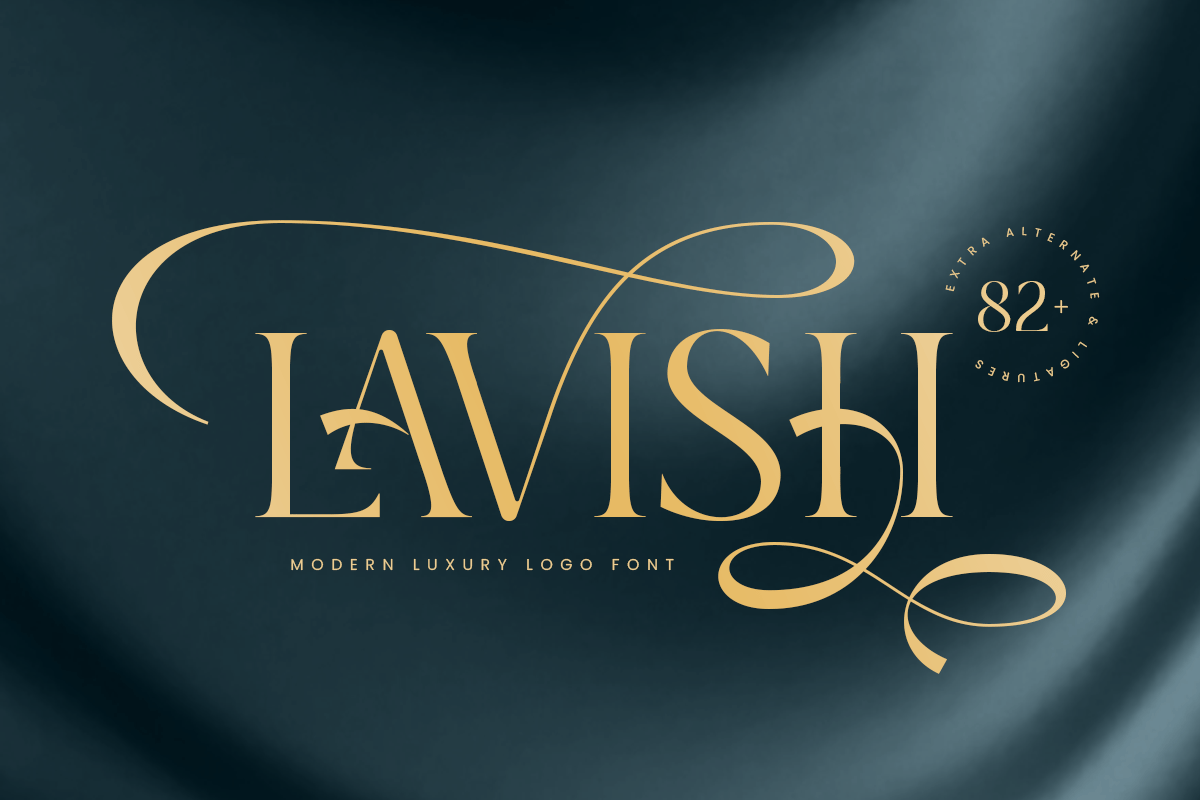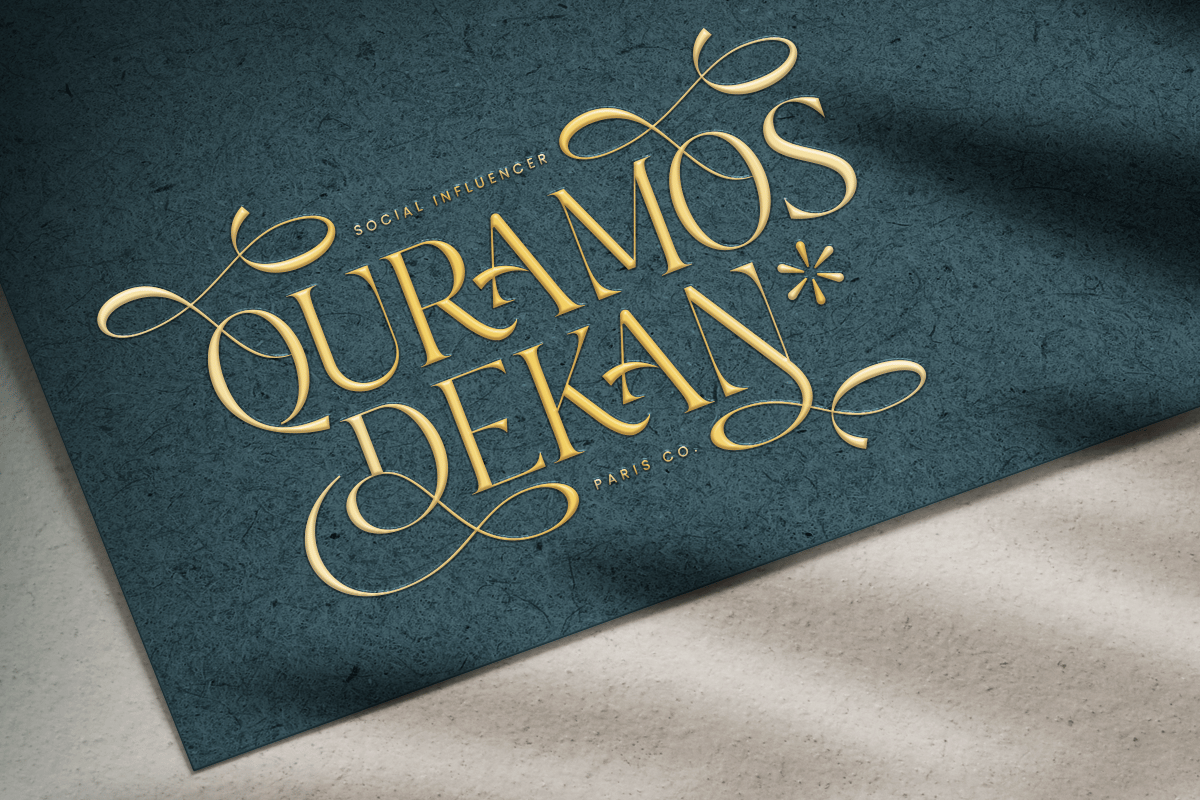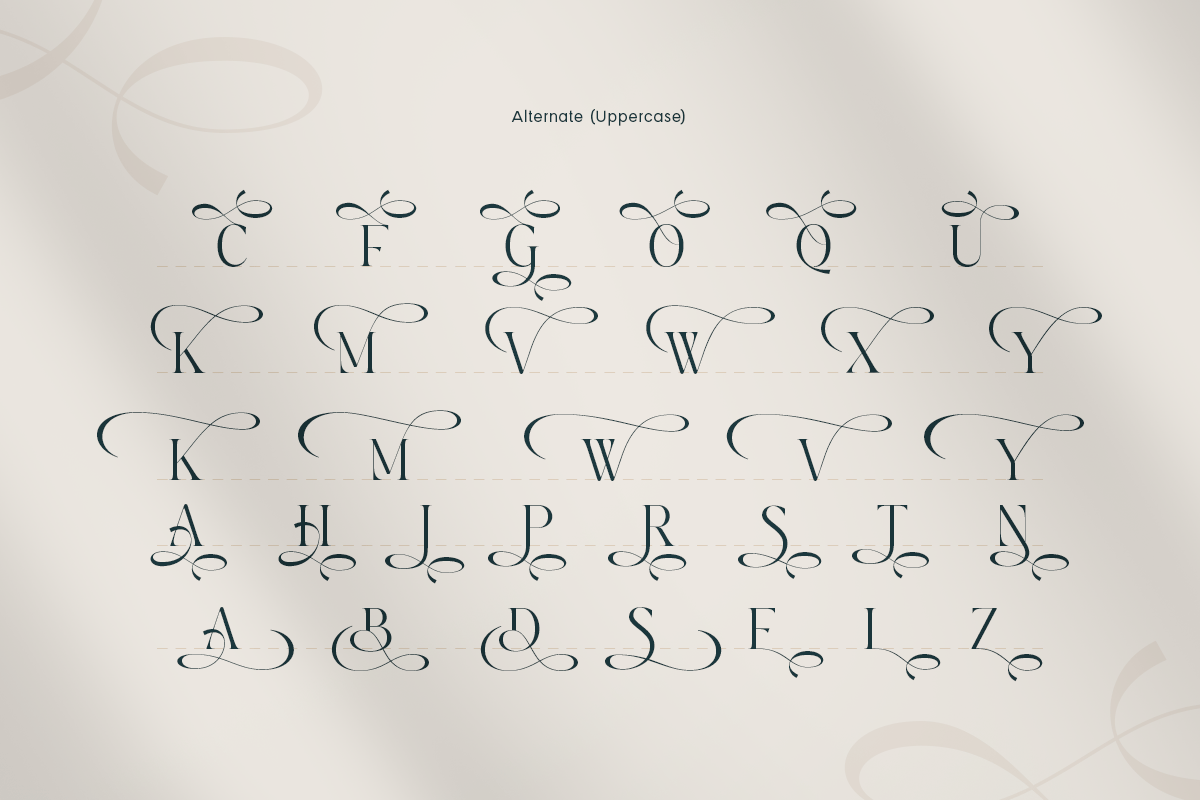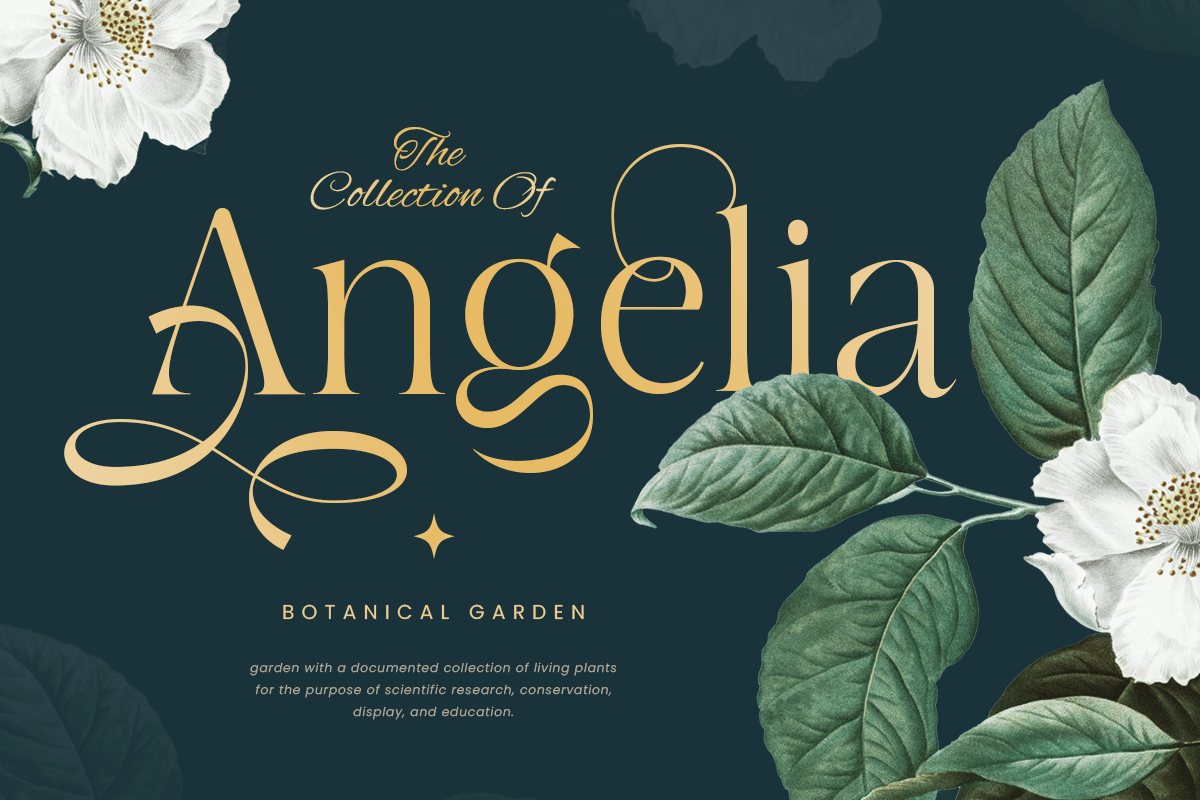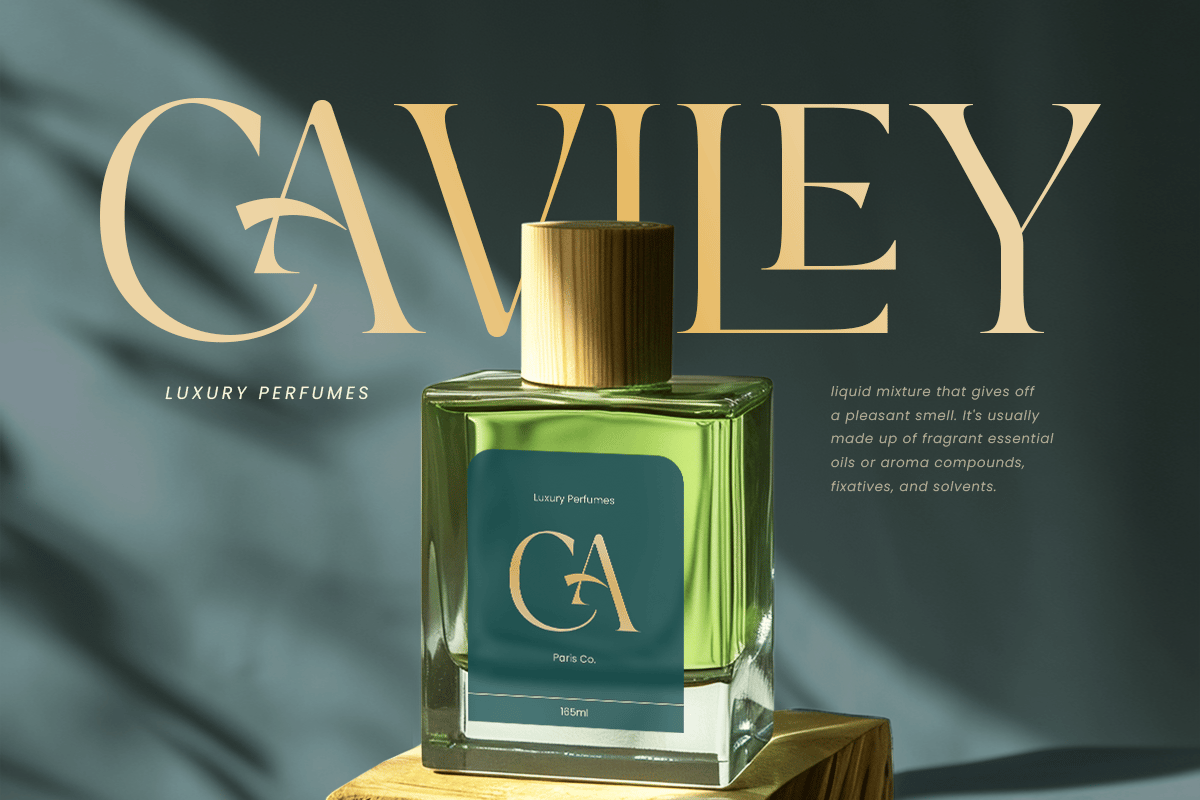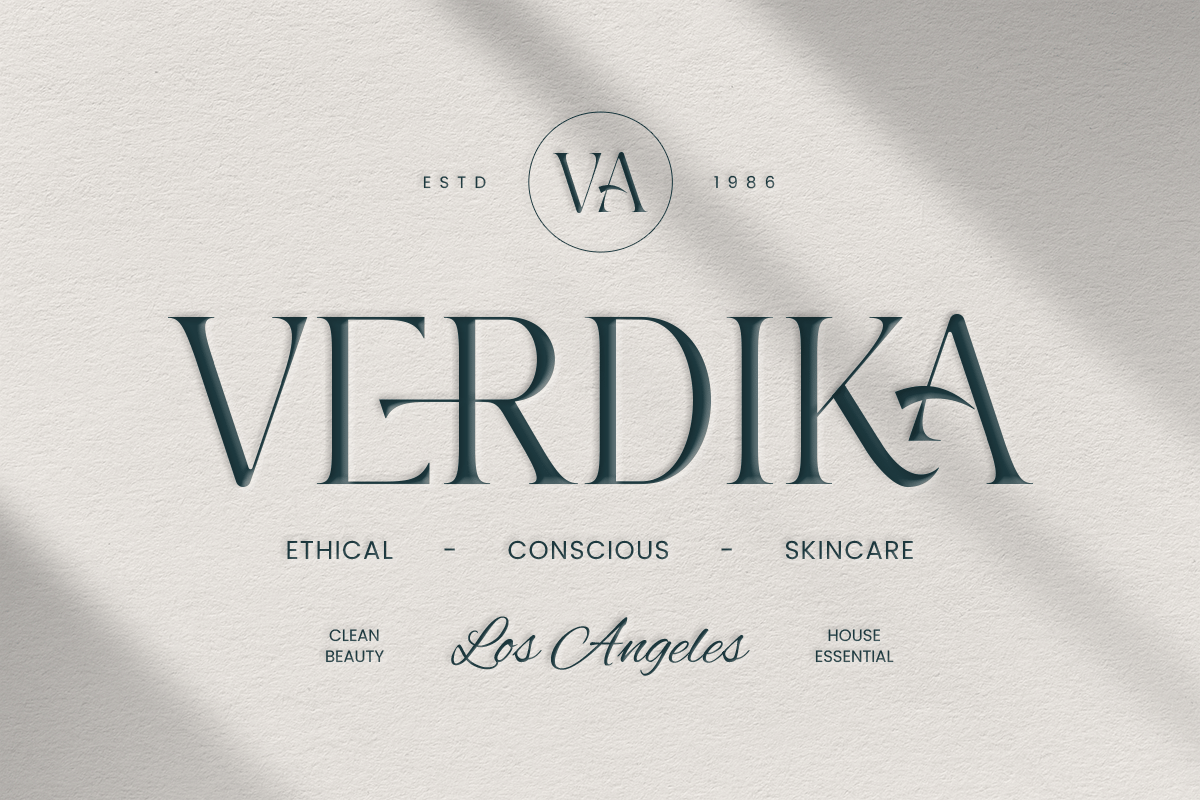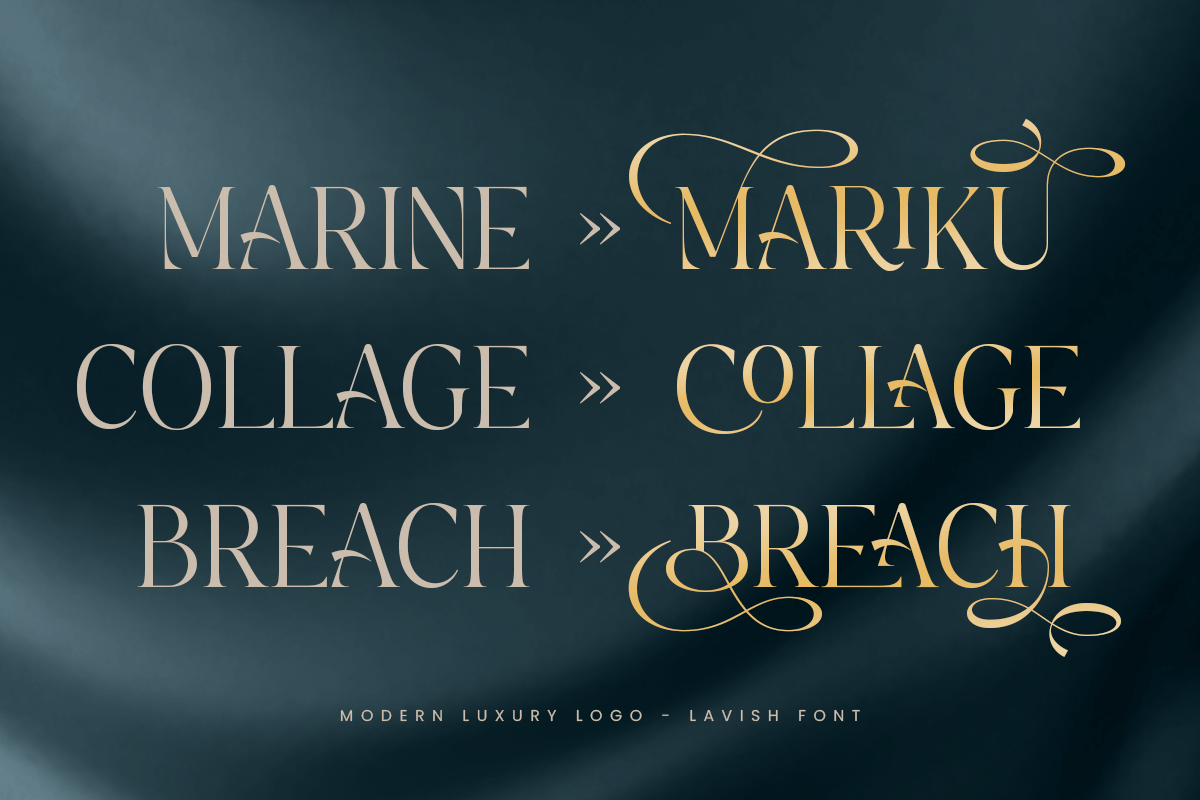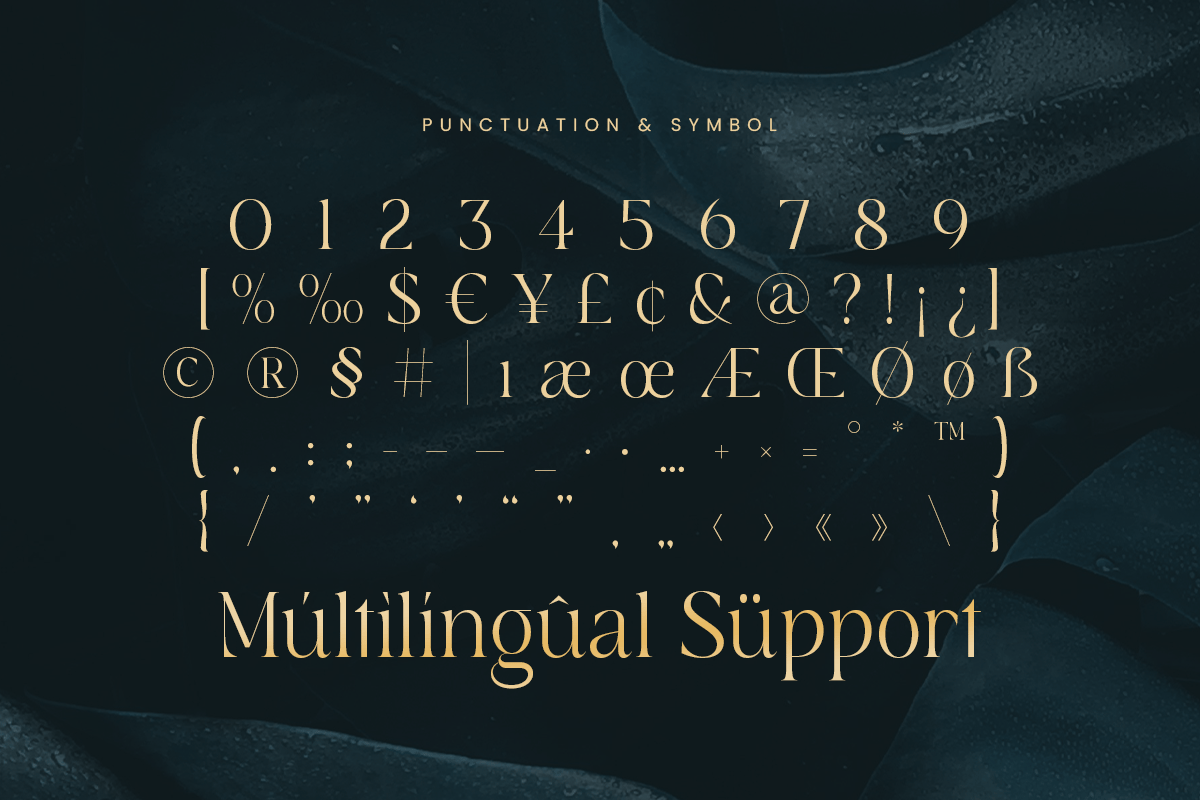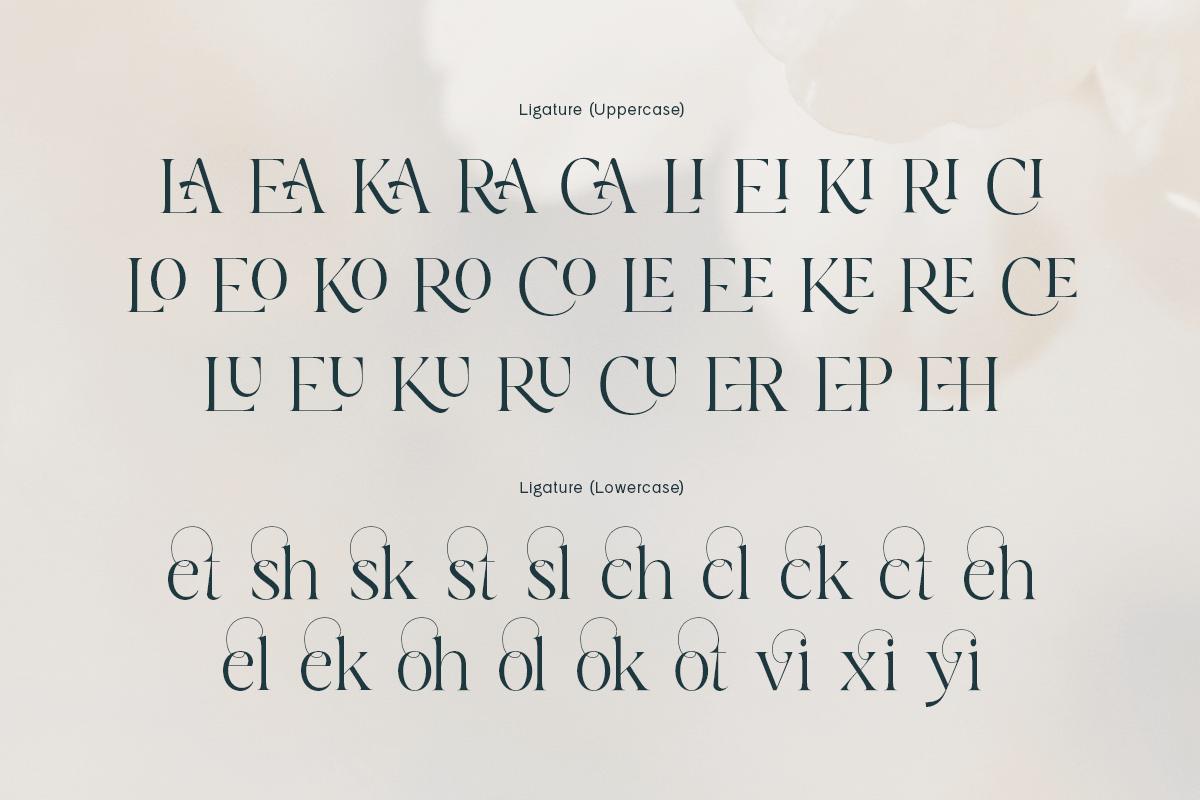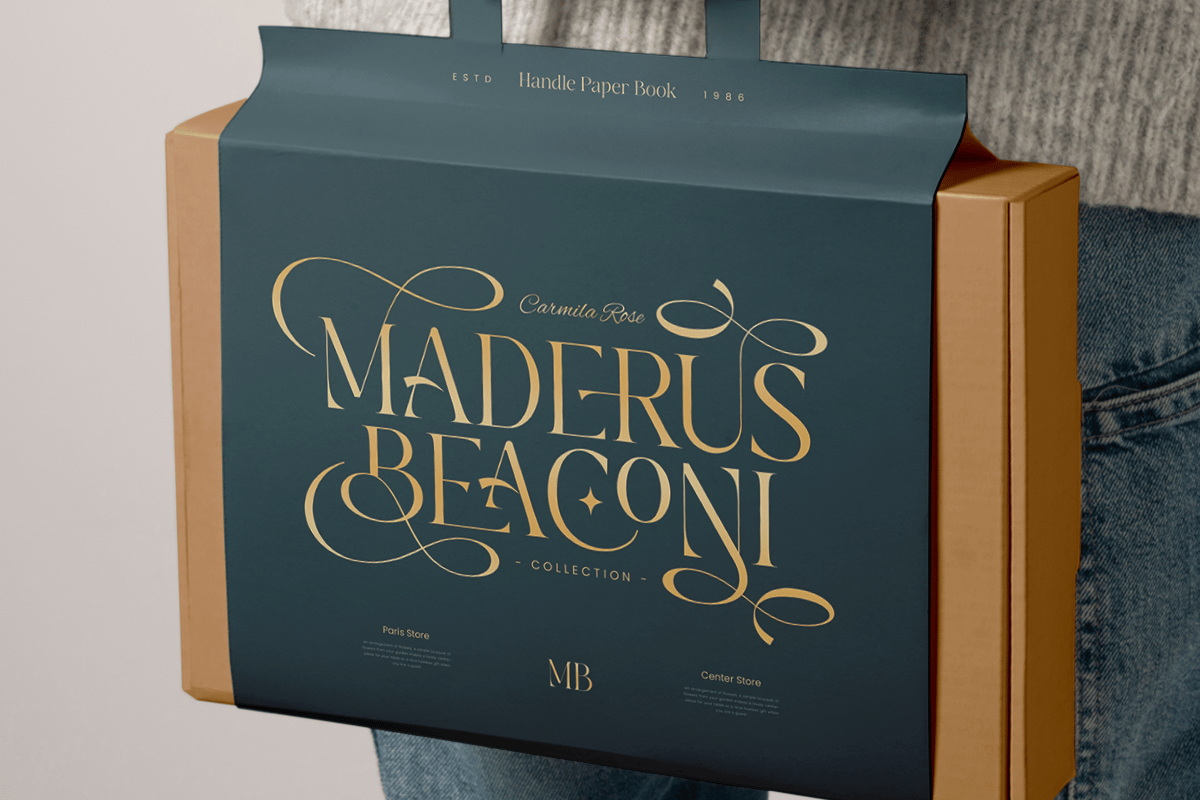
Lavish – Modern Luxury Logo Font
Introducing Lavish, a font that epitomizes modern luxury and elegance. Designed to elevate your brand, Lavish combines contemporary style with timeless sophistication, making it perfect for logos and high-end branding projects.
The Story Behind Lavish:
Imagine a font that embodies the essence of luxury, combining modern design elements with classic refinement. Lavish was born from the idea of creating a typeface that exudes sophistication and style, making it the ideal choice for brands looking to make a lasting impression. Each character is meticulously crafted to reflect elegance and premium quality, ensuring your designs stand out in any setting.
Lavish Font Features:
- Elegant Design: A sophisticated and stylish font perfect for luxury branding.
- Modern Aesthetics: Combines contemporary design with classic elegance.
- Versatile Usage: Ideal for logos, branding, invitations, and upscale marketing materials.
- High Legibility: Clear and refined, ensuring your message is conveyed with elegance.
*Inspirational Previews: Includes sample designs to spark your creativity.
Perfect For:
- Luxury Brands: Create logos and branding that exude sophistication and elegance.
- High-end Products: Design packaging and marketing materials for premium products.
- Event Invitations: Develop stunning invitations for weddings, galas, and exclusive events.
- Upscale Marketing: Elevate your marketing materials with a touch of luxury and style.
With Lavish, your designs will radiate elegance and refinement. Whether you’re working on high-end branding, luxury product packaging, or sophisticated event invitations, Lavish provides the perfect blend of modern style and classic elegance. Enhance your brand with Lavish and make a statement that resonates with luxury and sophistication.